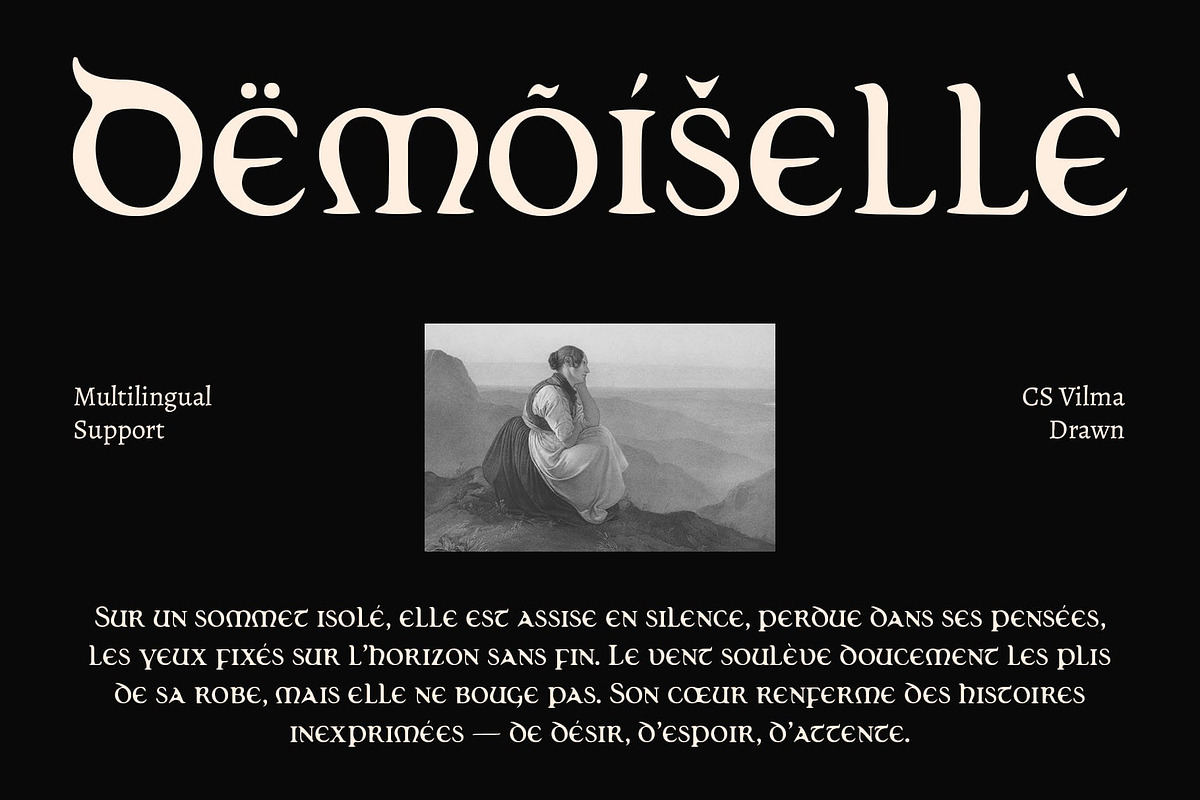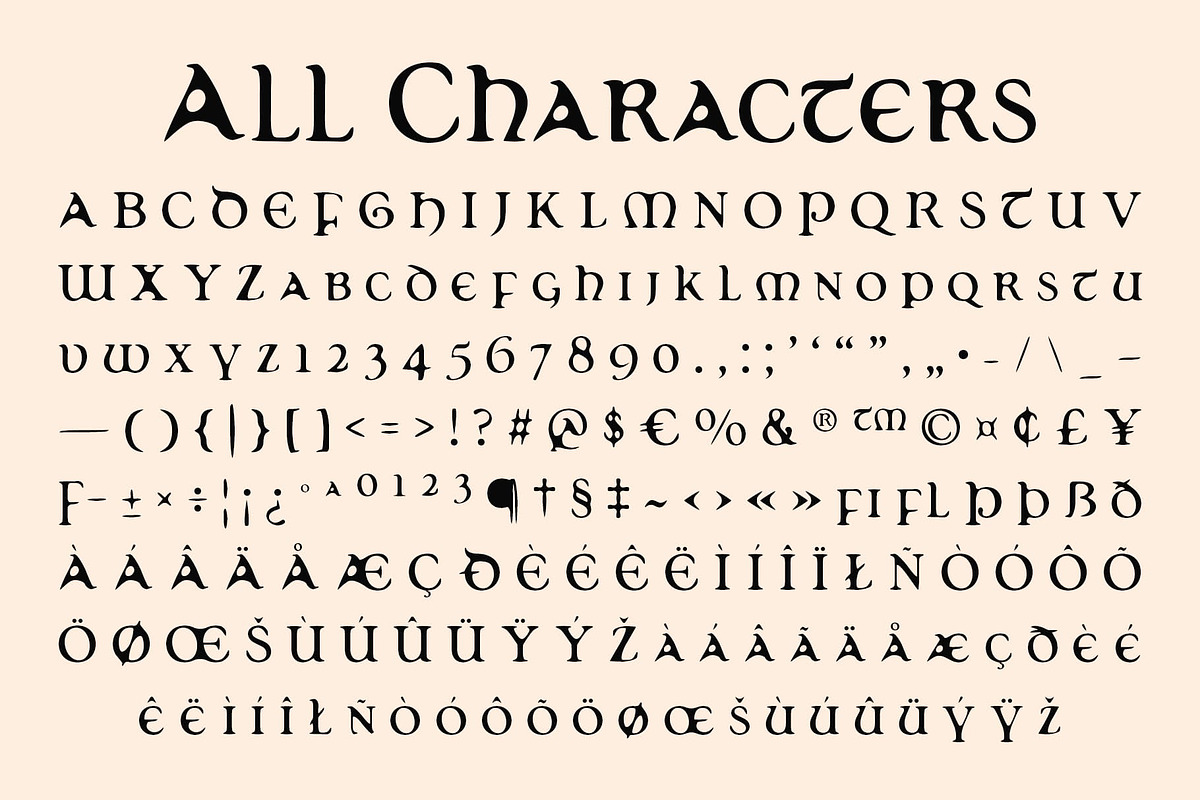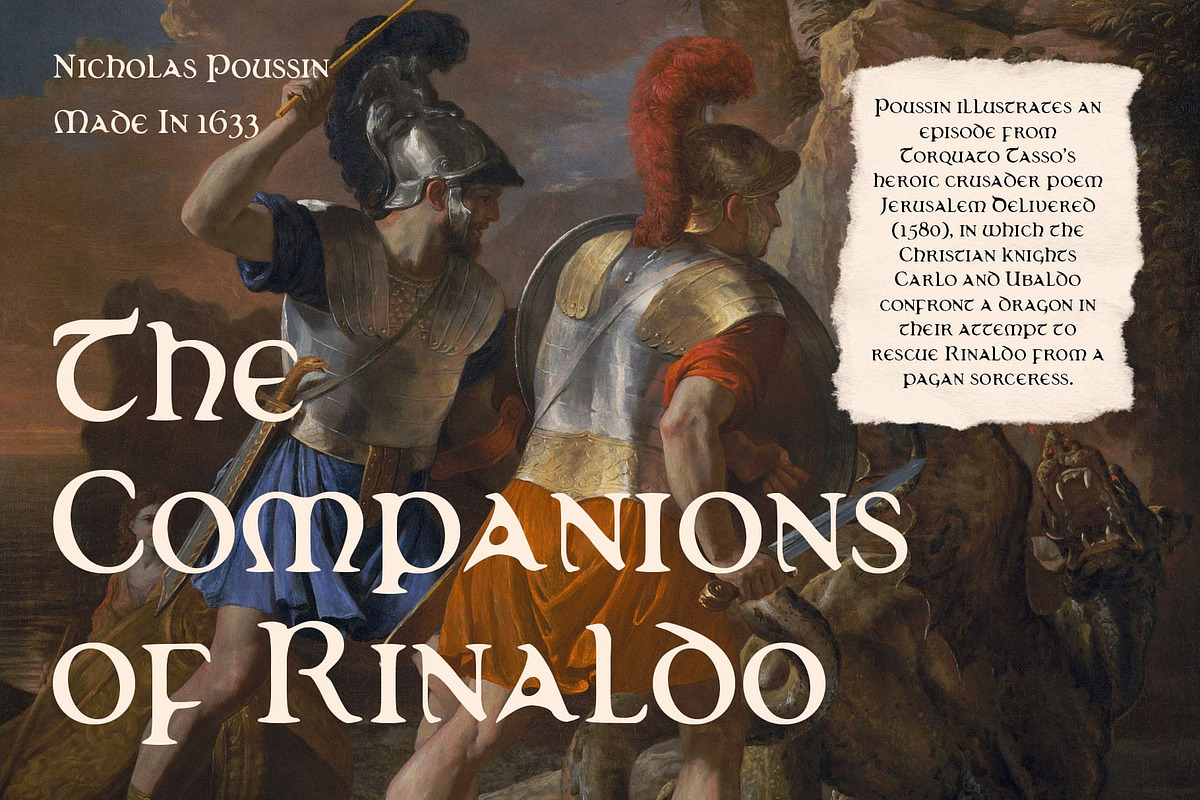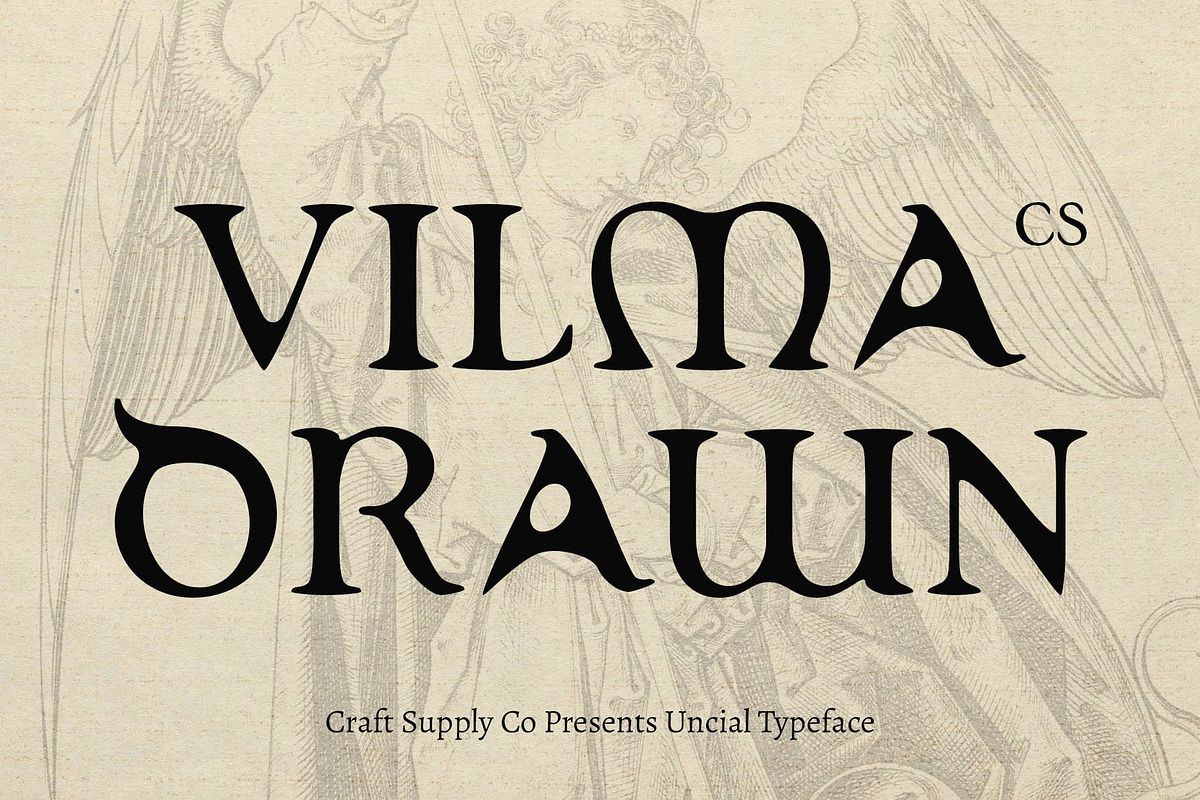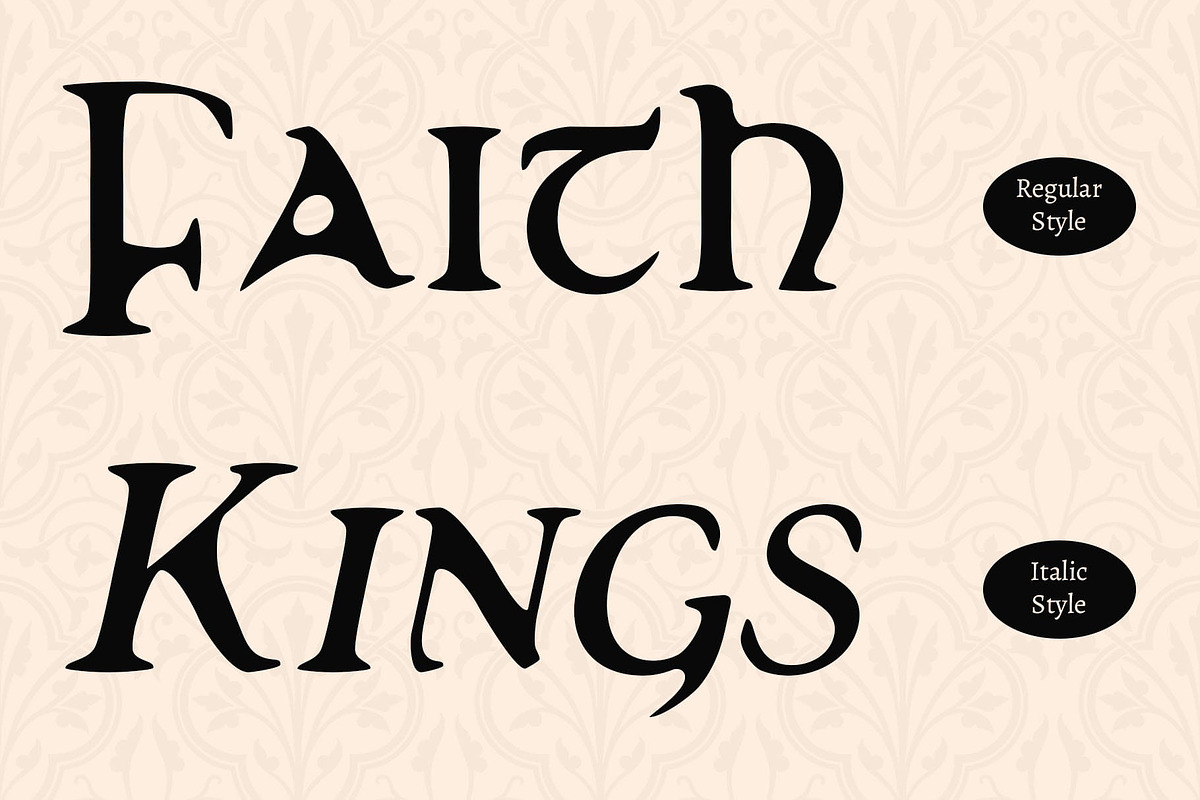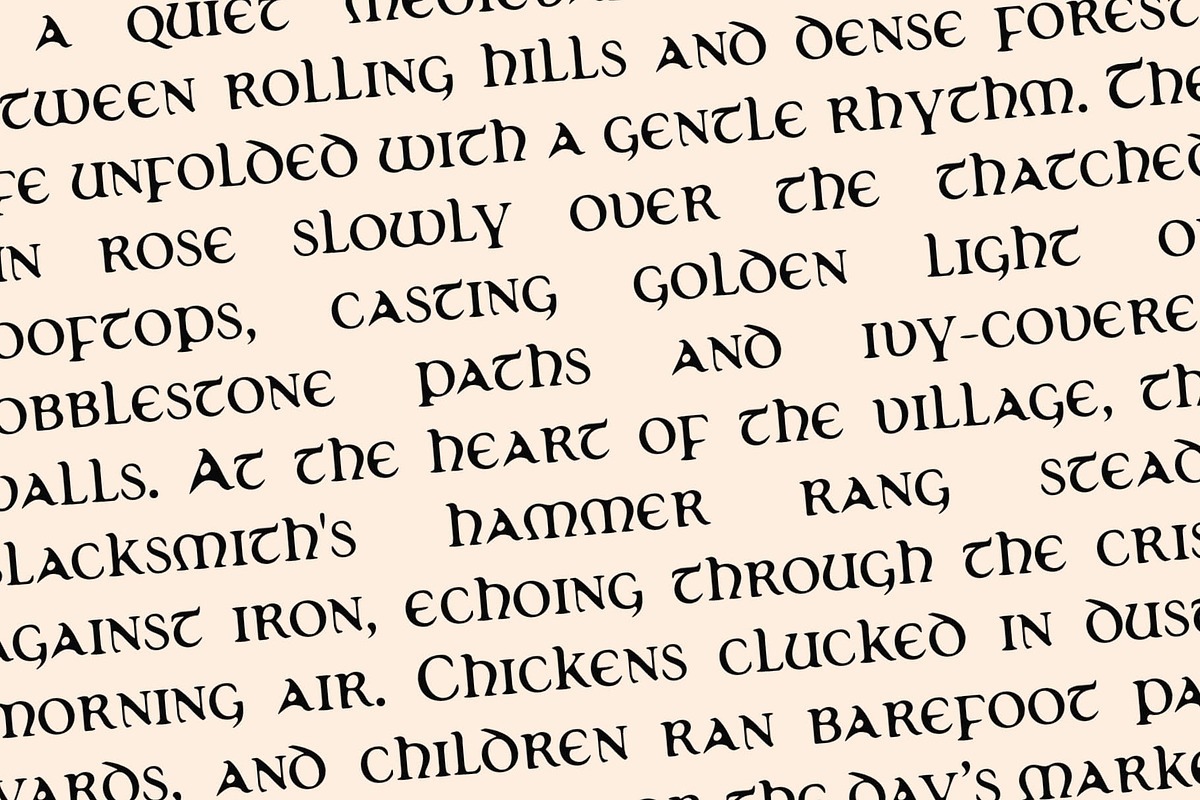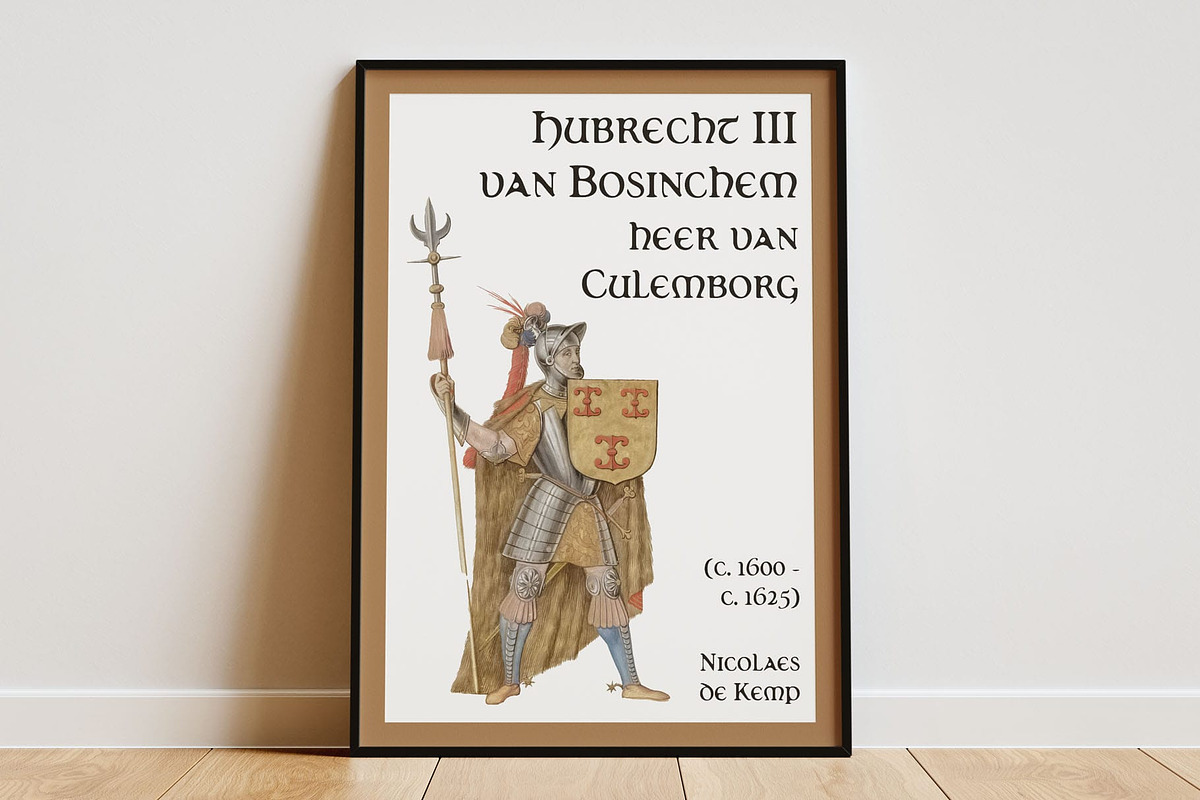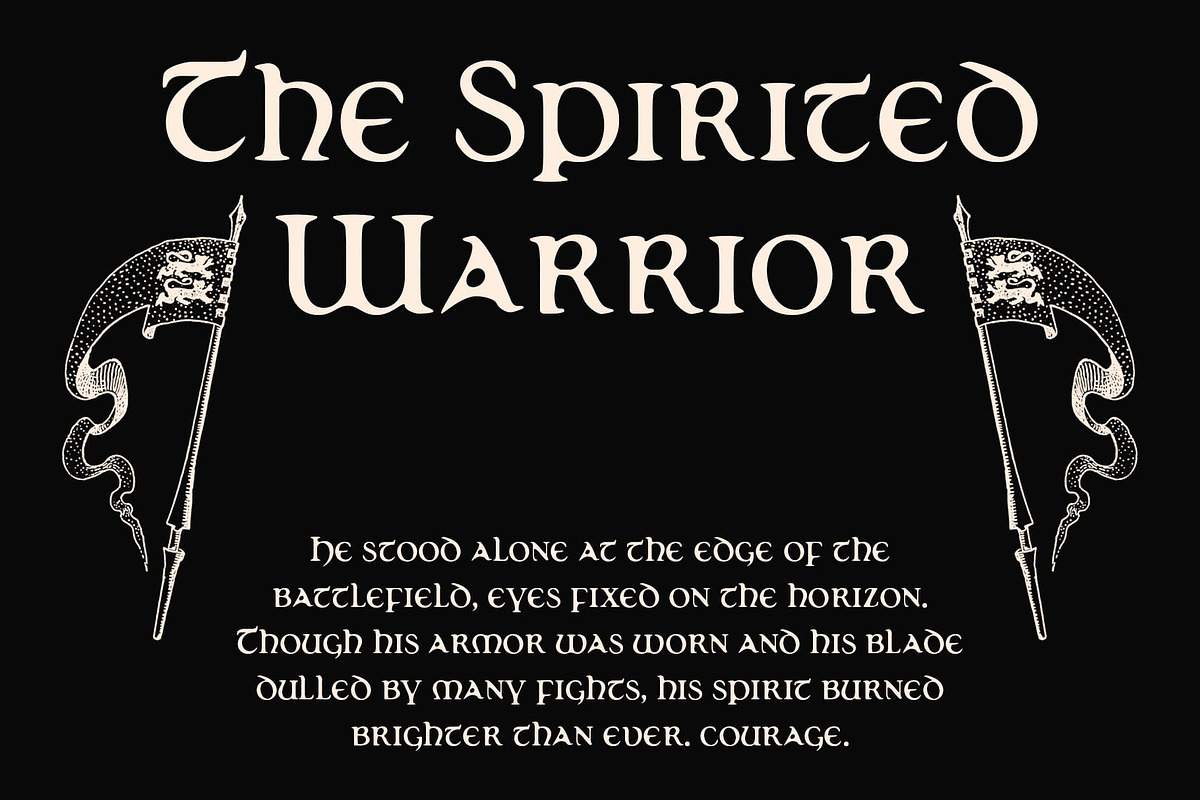
CS Vilma Drawn
CS Vilma Drawn – Handcrafted Elegance Rooted in History
Uncial Letterforms with Timeless Appeal CS Vilma Drawn is a display serif font rooted in the classic uncial style, featuring rounded, open, and flowing letterforms. Inspired by ancient manuscripts, its letter shapes evoke a sense of tradition, elegance, and spiritual rhythm, while the modern refinement in proportions keeps the design visually balanced and approachable.
Drawn Effect for Organic Expression What sets this classic font apart is its hand-drawn texture, which gives the font a raw, imperfect, and organic quality. This subtle roughness enhances its artistic character, making each letter feel personal and handcrafted—as though written by hand in ink on parchment. The drawn effect elevates the font from traditional to expressively modern.
Fusion of History and Creativity This imaginative font combines old-world charm with contemporary design sensibility, delivering a font that feels vintage yet fresh. The historical basis gives it gravitas, while the drawn treatment adds playful irregularity and creative flair. It is both sophisticated and inviting, ideal for storytelling-driven designs.
Ideal for Folklore, Fantasy, and Editorial Use With its distinctive style and emotional depth, this magical and artistic font is perfect for fantasy book covers, folklore-inspired visuals, heritage branding, or editorial layouts that seek a rich, expressive, and characterful voice. Whether used for titles or branding, it brings a timeless, handcrafted elegance that resonates deeply.